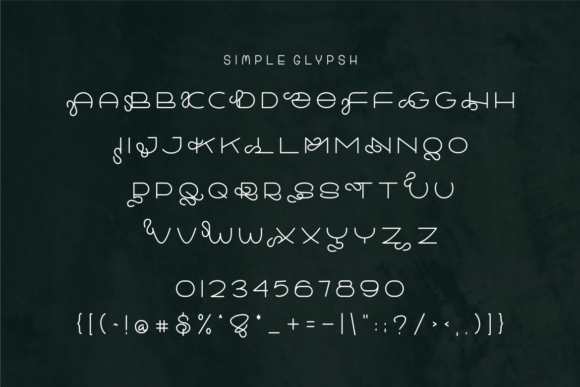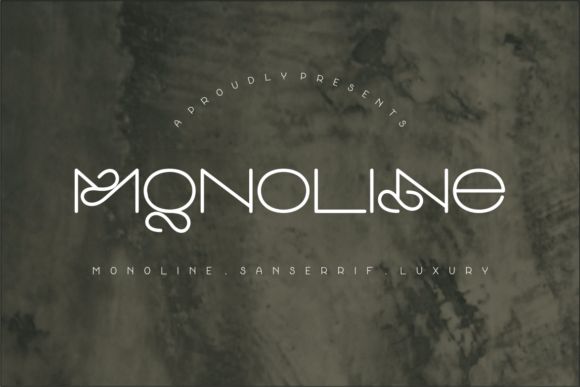
The Elusive Font: A Designer’s Quest for Emorricha
I still remember the countless hours I spent searching for the perfect font for a client’s luxury branding project. The brief was simple: elegant, sophisticated, and stylish. I scoured the internet, tried out numerous fonts, but none seemed to fit the bill. That was until I stumbled upon Emorricha, an exquisite and refined sans serif font that instantly caught my attention.
A First Impression: What Makes Emorricha Special
Emorricha is more than just a font; it’s a statement piece. With its sleek lines and elegant character, it can elevate your creative ideas and add a touch of luxury to your designs. Whether you’re a designer, crafter, or creative hobbyist, Emorricha is sure to impress.
What I Love About Emorricha ✨
- ✅ Clean and Minimalist Design: Emorricha’s sans serif design makes it perfect for modern and minimalist designs.
- ✅ Elegant and Sophisticated: The font’s refined character adds a touch of luxury to any design.
- ✅ Highly Versatile: Emorricha can be used for a wide range of projects, from branding and advertising to packaging and digital media.
- ⚠️ Limited Availability of Glyphs: Emorricha’s glyph set is limited, which may not be suitable for projects that require a wide range of special characters.
- ⚠️ Not Suitable for Body Text: Due to its elegant and refined design, Emorricha may not be the best choice for body text, especially for longer paragraphs.
The Designer Inspiration Behind Emorricha
Emorricha was designed with the goal of creating a font that embodies elegance and sophistication. The designer’s inspiration came from the world of luxury and high-end branding, where typography plays a crucial role in conveying a brand’s message. With Emorricha, the designer aimed to create a font that would add a touch of luxury to any design.
Q: Is Emorricha suitable for body text?
A: While Emorricha is an elegant and refined font, it may not be the best choice for body text, especially for longer paragraphs.